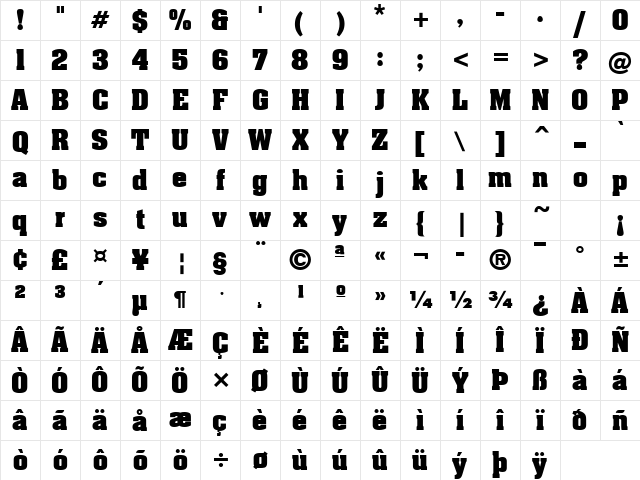
Blacksmith Bold Free Font
Blacksmith Bold
Design Context for Blacksmith
Blacksmith is a composed and adaptable typeface that performs quietly and consistently across a wide range of design contexts. Its bold stroke weight gives it real presence on the page.